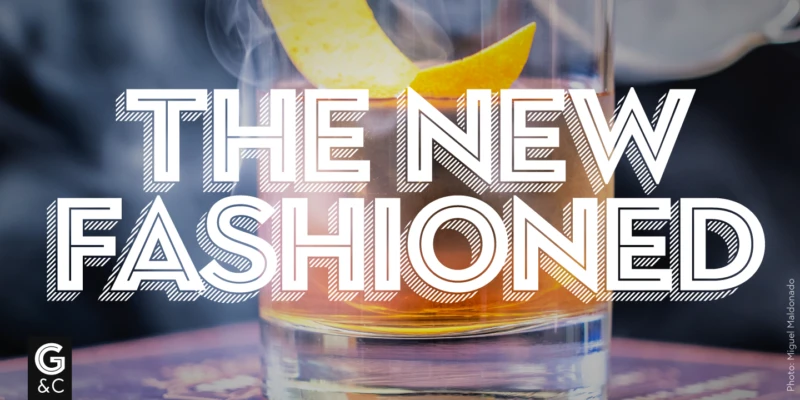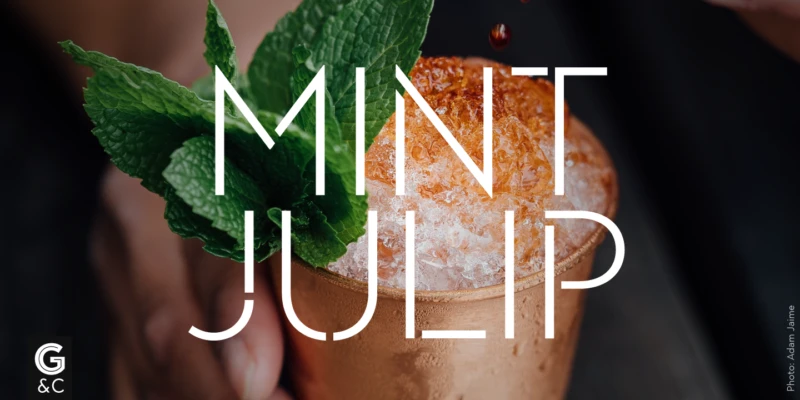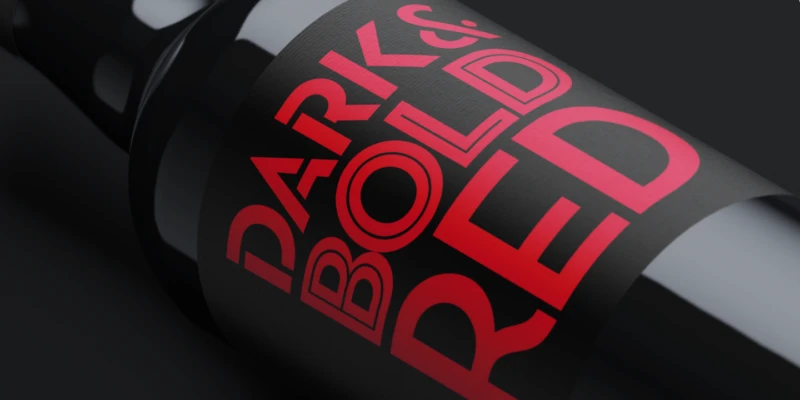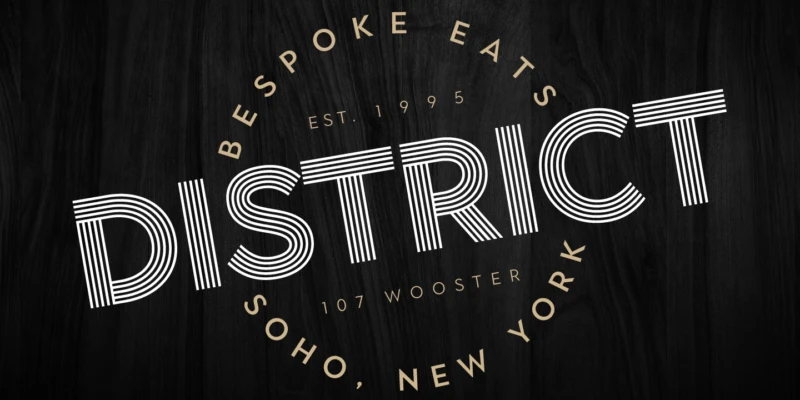
Town Font Family
Town Lines Regular —
dry martini
Town Inline Black —
Jägerbomb
Town Chic Hairline —
Mango Daiquiri
Town Display Black —
Campari spritz
Town Text Book —
A Campari spritz is cousin of the popular Aperol spritz, an Italian aperitif (that is, drink for before a meal). The spritz was invented back in the 1800’s in Italy as a way to water down sparkling wine by mixing in…well, water! It wasn’t until the 1950’s that the Aperol spritz took the form it has today.
Town Contrast Regular —
COSMOPOLITAN
Town Dimensional Black Lines —
MARGARITA
In-Use
Town font by J Foundry — the words “THE NEW FASHIONED” in outlined, upright sans serif letters with a striped fill, over a drink with a lemon peel
Town font by J Foundry — the words “MINT JULIP” in a thin, sans-serif, all-caps typeface, with a small “G & C” logo in the bottom left corner
Town font by J Foundry — the words “DARK & BOLD” in red outline sans-serif letters and “RED” in solid red sans-serif letters, on a black label
Town font by J Foundry — the word “DISTRICT” in a striped sans-serif, with “BESPOKE EATS” and “SOHO, NEW YORK” in a curved sans-serif above and below, and “EST. 1995” and “107 WOOSTER” in a smaller sans-serif.
Interchangable styles
Layering styles
Emboss & Shadow
Lines
Chic
Contrast
Stencil
Shadow
Contrast Lines
Text